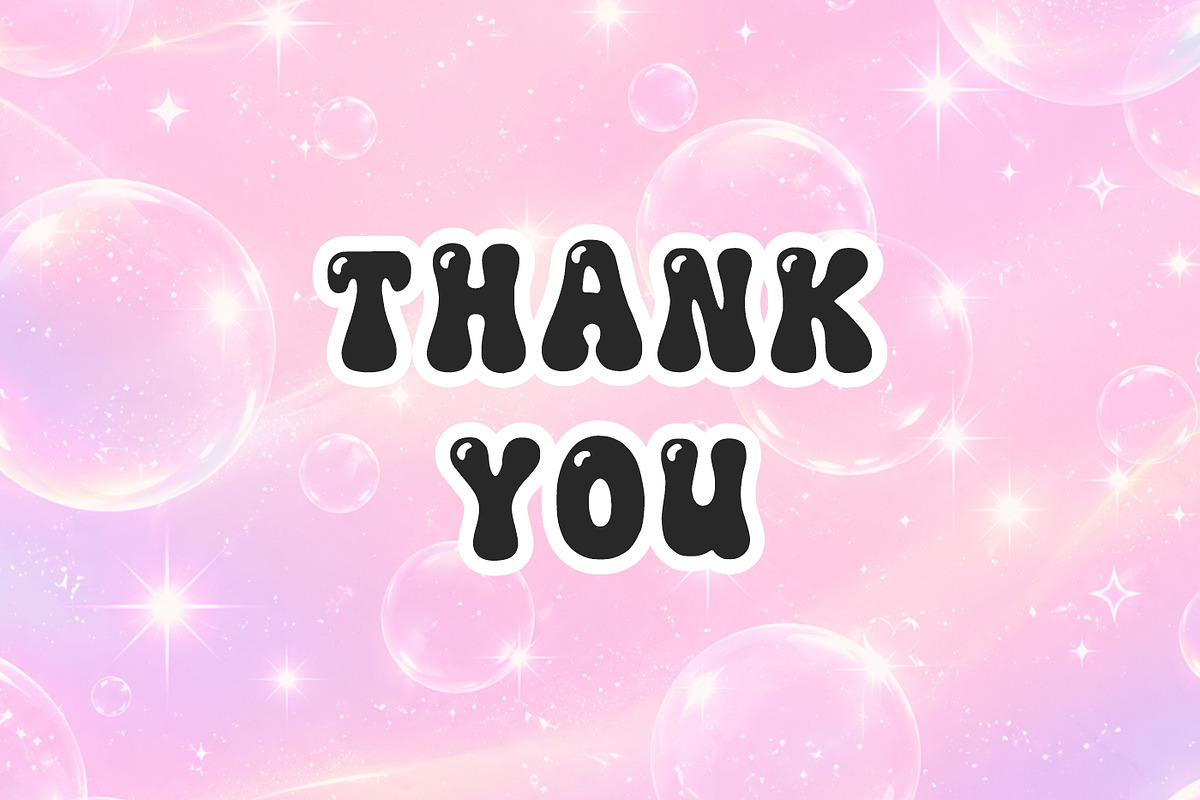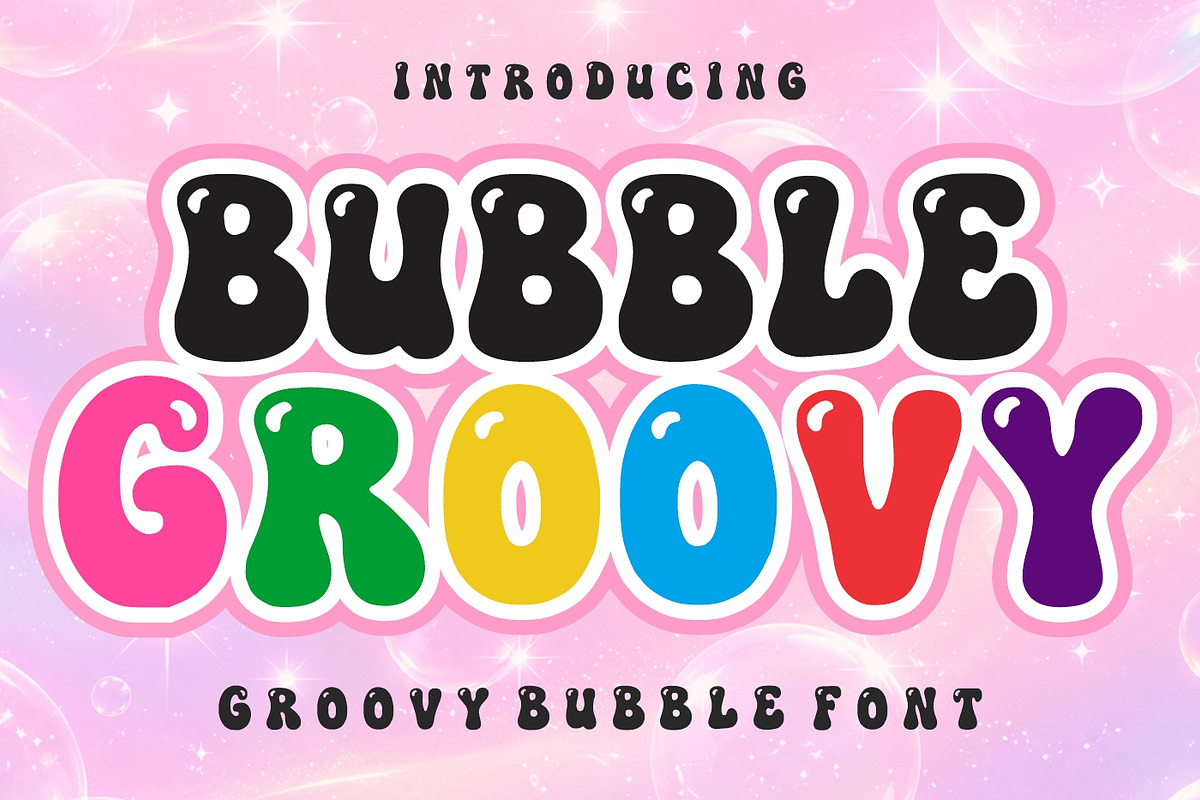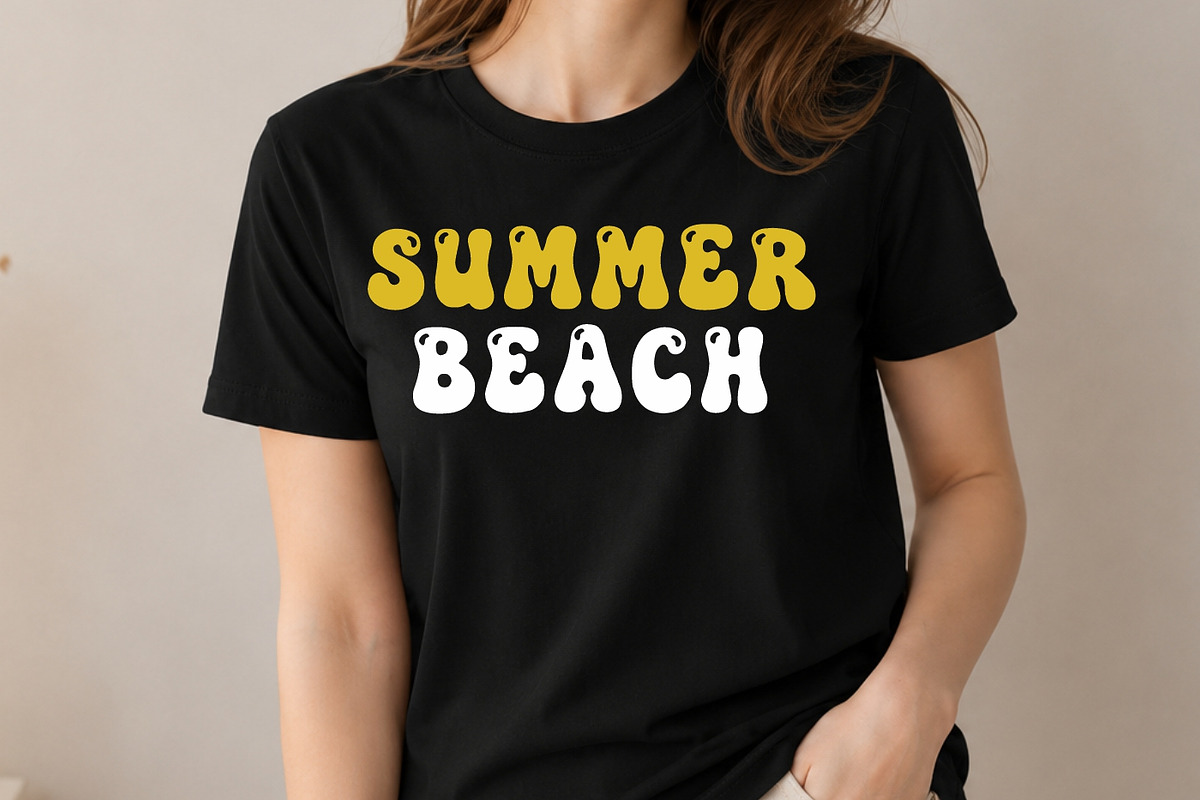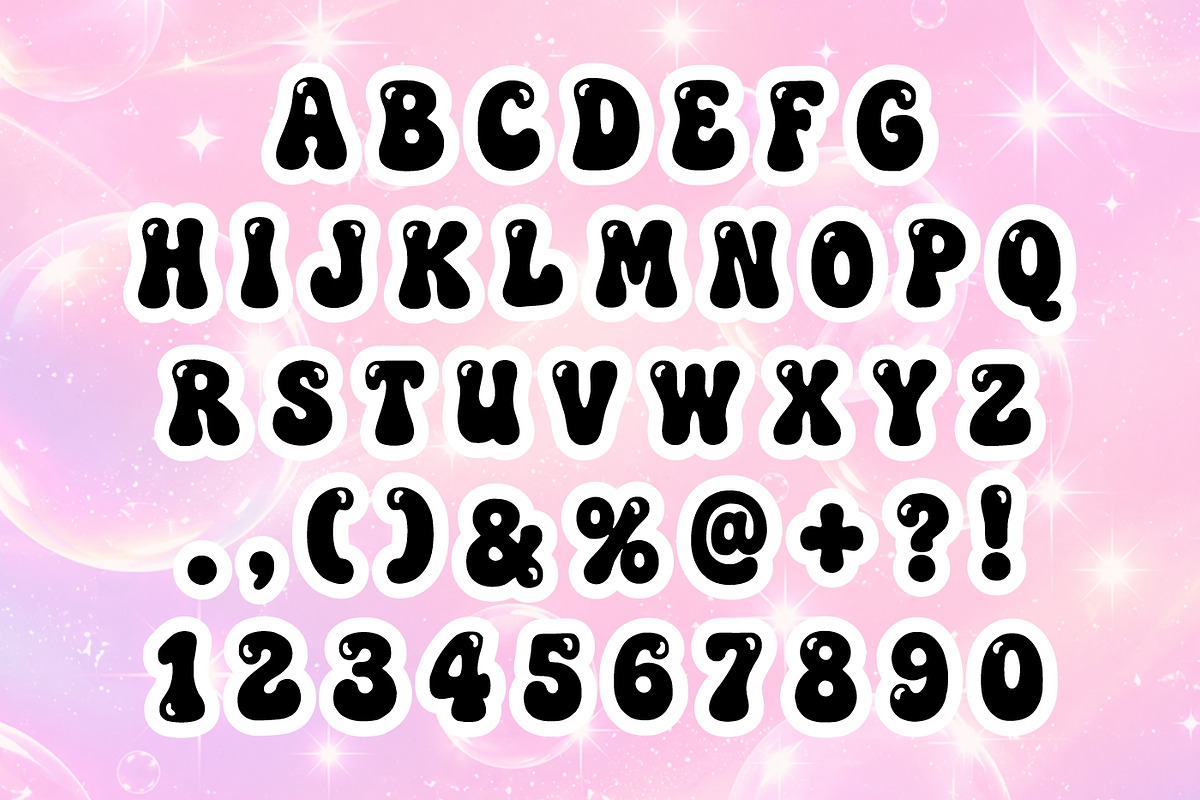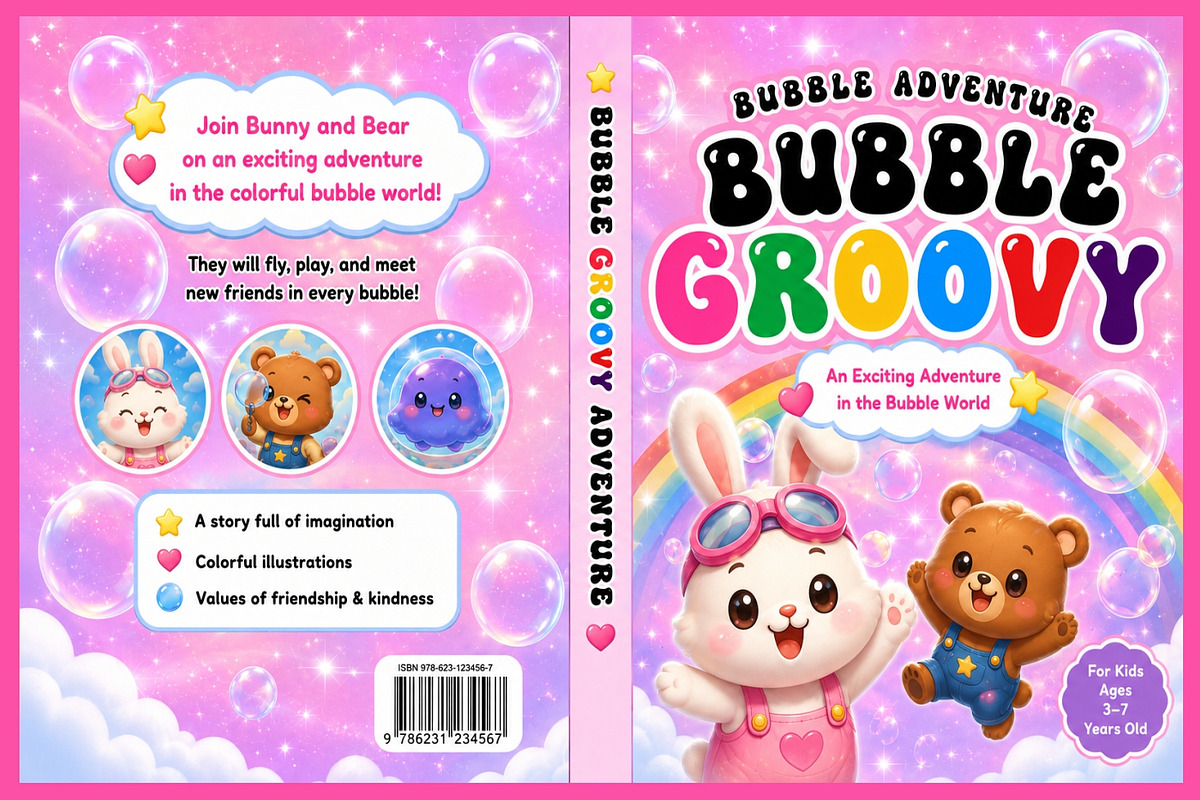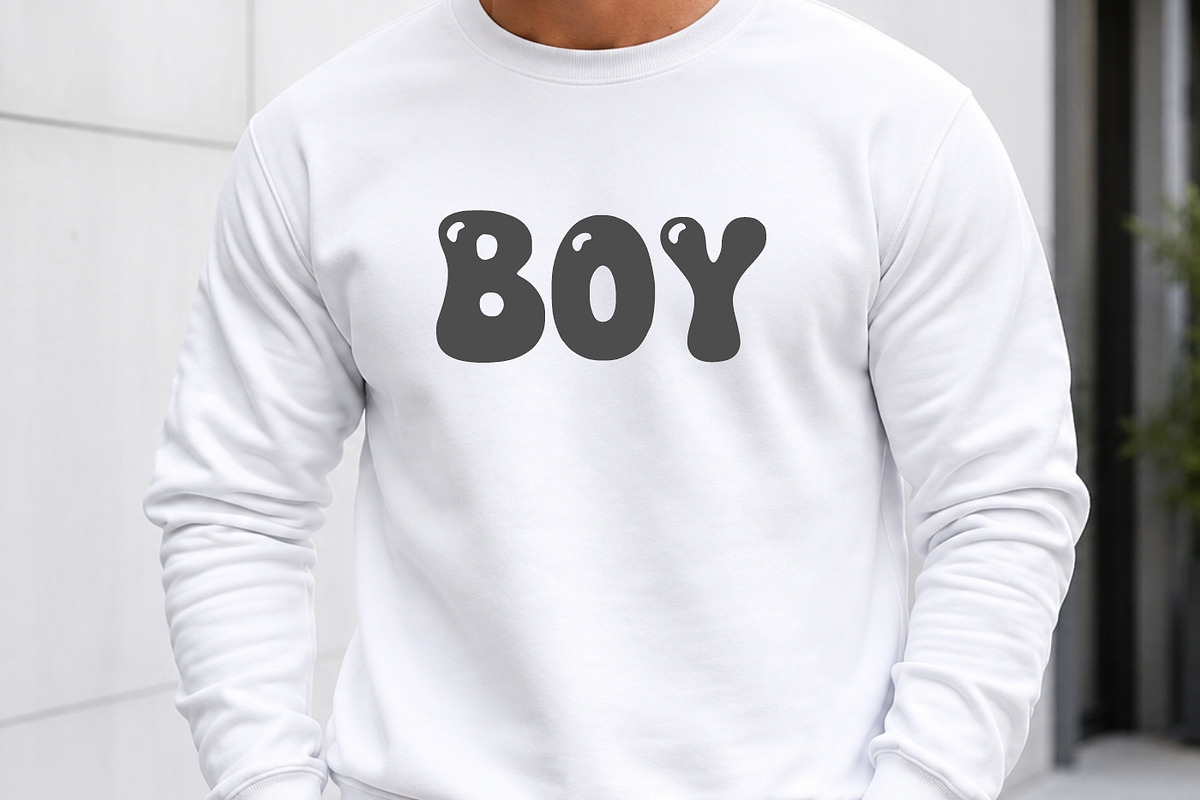
Bubble Groovy
Bubble Groovy is a fun, cheerful, and eye-catching retro bubble font designed to bring happiness and personality to your creative projects. Featuring chunky rounded letterforms, playful curves, glossy bubble-inspired details, and a vibrant groovy aesthetic, this font captures the nostalgic spirit of the 60s, 70s, and modern kawaii design trends.
With its bold and friendly appearance, Bubble Groovy is perfect for creating standout headlines, logos, product packaging, social media graphics, stickers, greeting cards, posters, invitations, and children’s designs. The soft rounded shapes create a welcoming and approachable look, while the retro-inspired style adds a unique vintage charm that makes every project feel fun and memorable.
Whether you’re designing for kids’ brands, toy packaging, birthday parties, school projects, sublimation products, t-shirts, mugs, planners, or digital content, Bubble Groovy delivers a playful visual impact that instantly attracts attention. Its colorful and energetic personality makes it ideal for designers, crafters, and entrepreneurs looking to create joyful and engaging artwork.
Bubble Groovy works beautifully with bright color palettes, layered effects, outlines, and playful illustrations. It is especially suitable for Print-on-Demand products, Cricut crafts, sticker businesses, and social media branding. The font combines excellent readability with a distinctive retro bubble style, making it a versatile addition to any font collection.
Bring creativity, nostalgia, and happiness to your designs with Bubble Groovy, a delightful display font that turns ordinary text into playful works of art.